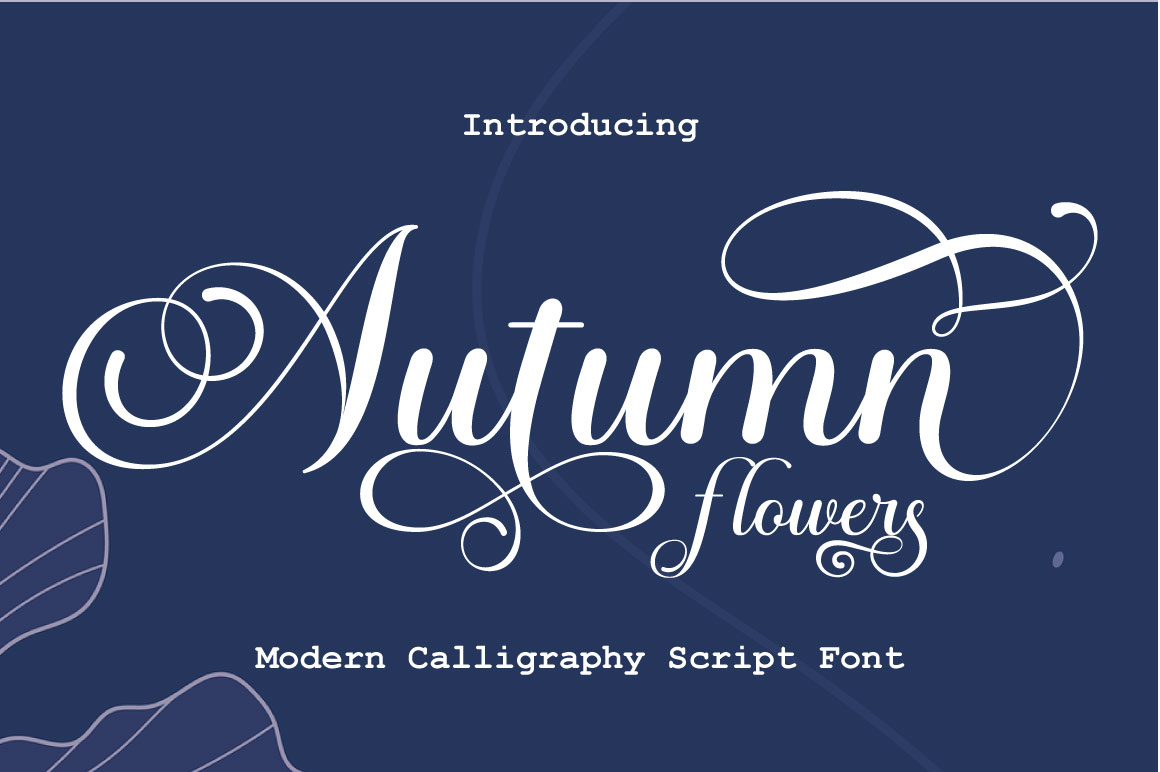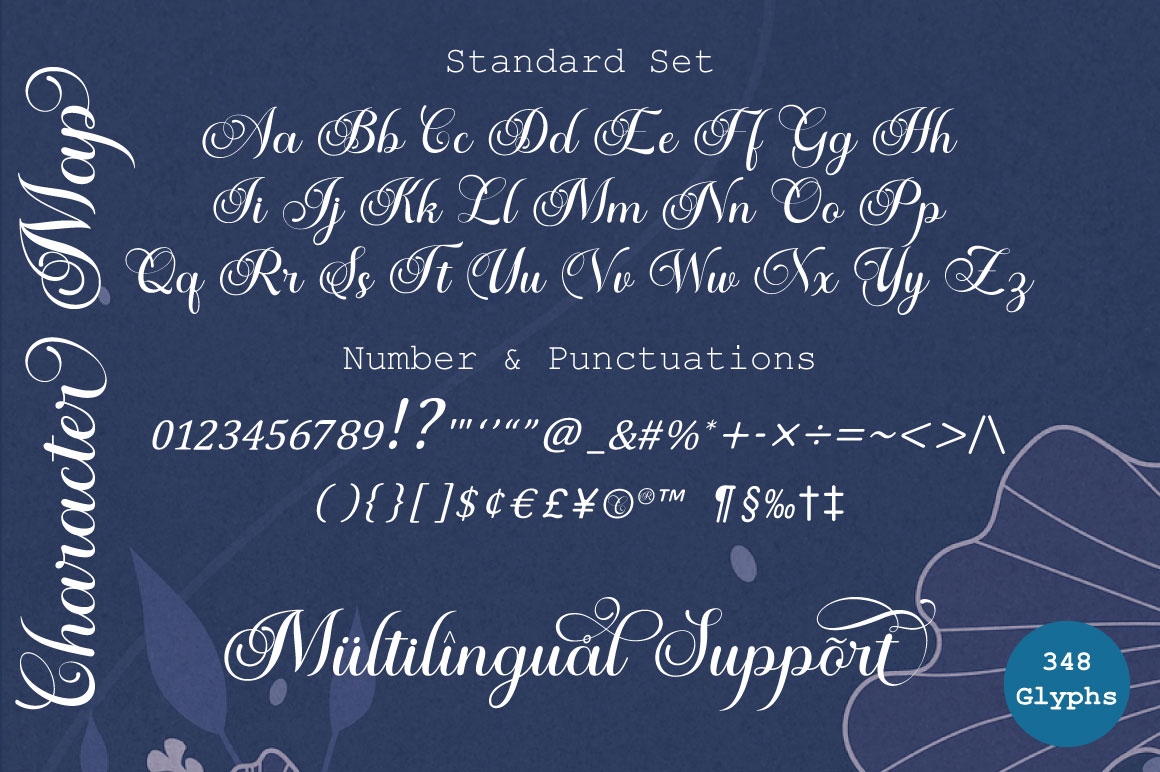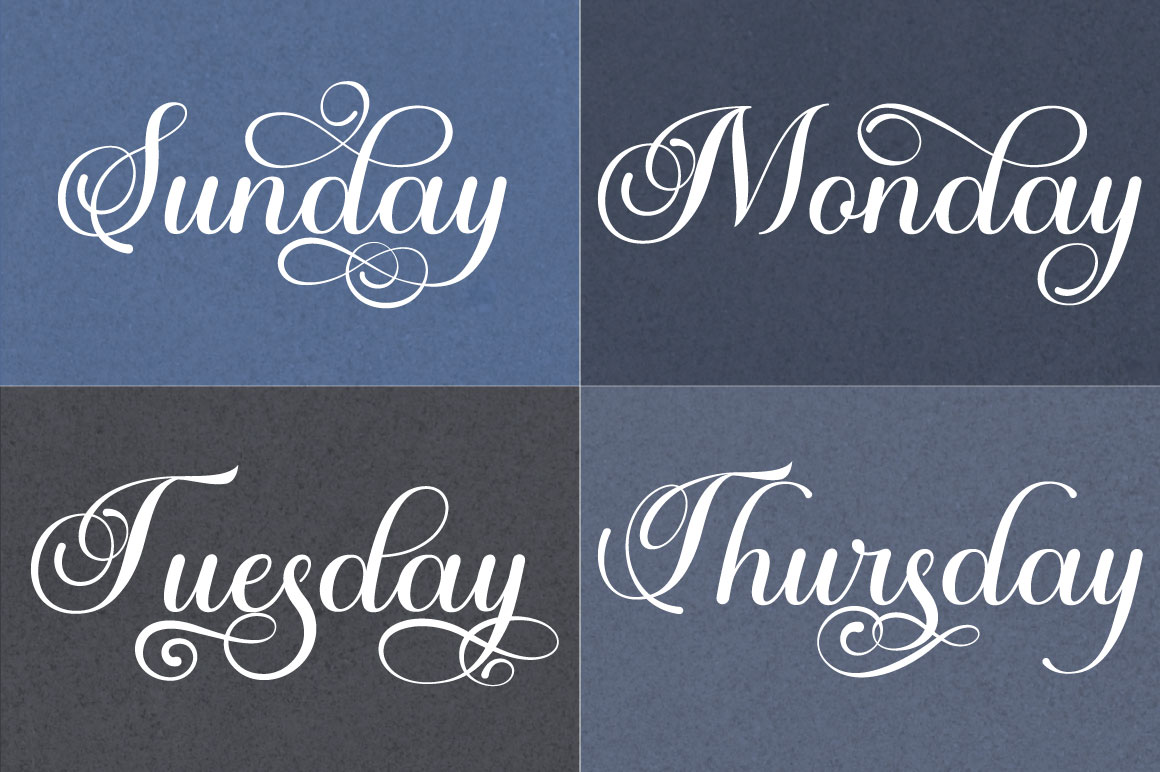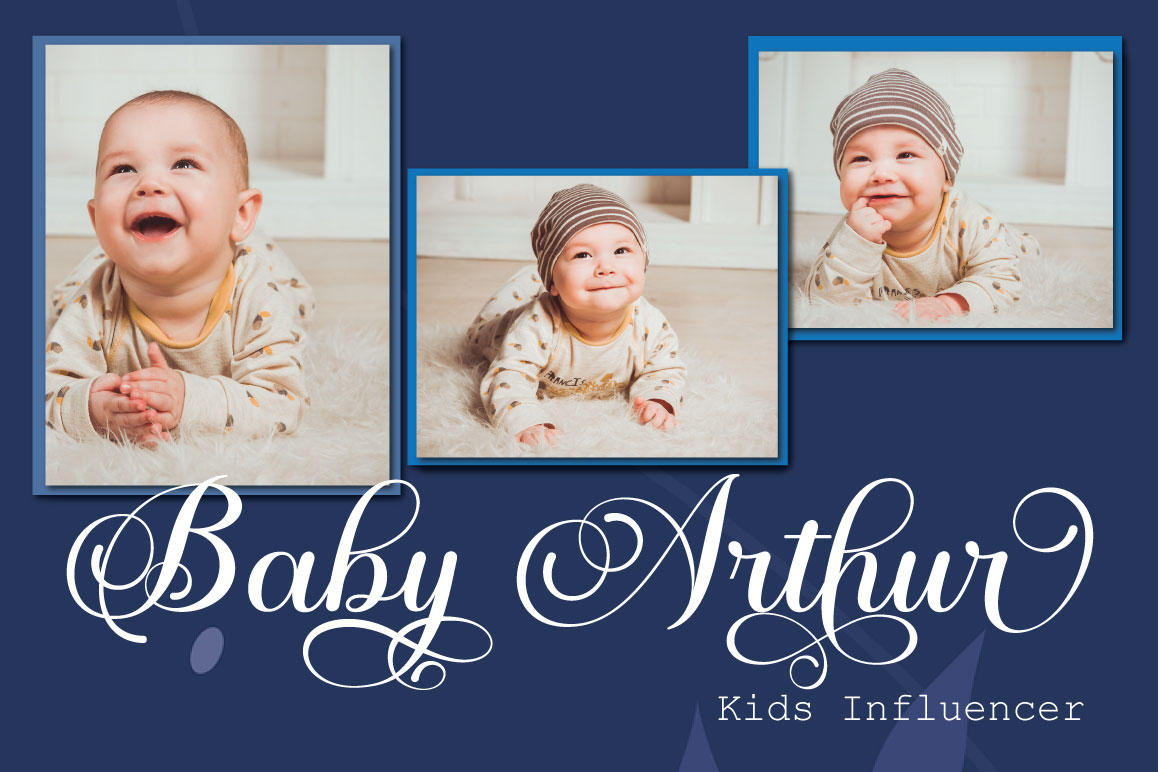
Autumn Flowers Font
Autumn Flowers is a modern calligraphy script font designed with elegance and style. This font is perfect for creating stunning wedding invitations, fashion branding, logos, and more. With its carefully crafted characters, Autumn Flowers adds a personal and professional touch to any project. The font’s smooth lines and graceful curves make it ideal for designs that need to express confidence and vibrant energy.
Why Use Autumn Flowers?
Autumn Flowers stands out as a versatile font that can enhance a variety of creative projects. Whether you are designing wedding invitations, branding for fashion, or a unique logo, this font helps your work make a statement. The modern calligraphy style of Autumn Flowers blends traditional beauty with a contemporary edge, making it suitable for both classic and modern designs.
Easy Access to All Features
Ideal for Multiple Projects
Autumn Flowers isn’t limited to just weddings and fashion. This font is perfect for a wide range of creative projects. Whether you’re designing greeting cards, social media posts, product packaging, or any project that requires a touch of elegance, Autumn Flowers is an excellent choice. Its stylish look makes it suitable for any project that aims to convey beauty, creativity, and a personal touch.
In summary, Autumn Flowers is a versatile and elegant font that adds confidence and beauty to any project. Its modern calligraphy style is perfect for a variety of applications, from weddings to branding and beyond. With its PUA encoding, accessing all the special features is easy, making your creative process smoother and more effective. Download Autumn Flowers today and bring your ideas to life with this stylish font!